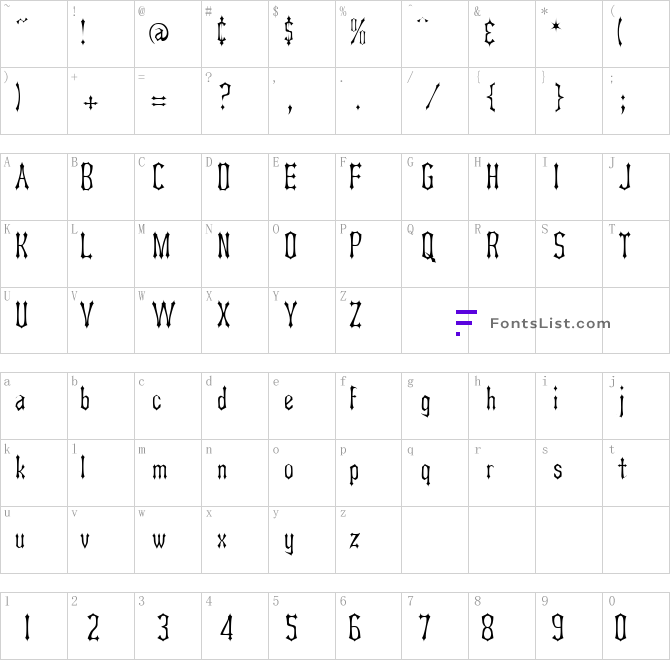
• Font Name:Asterx
Asterx-Regular.ttf is a very beautiful artistic font, Asterx-Regular.ttf is widely used in the design and printing of various books and pictures,Asterx-Regular.ttf has a strong visual impact,Asterx-Regular.ttf is a commonly used font in newspapers, magazines and books, and is used in posters, e-commerce Poster design, store design, logo design, font design and other fields.Asterx-Regular.